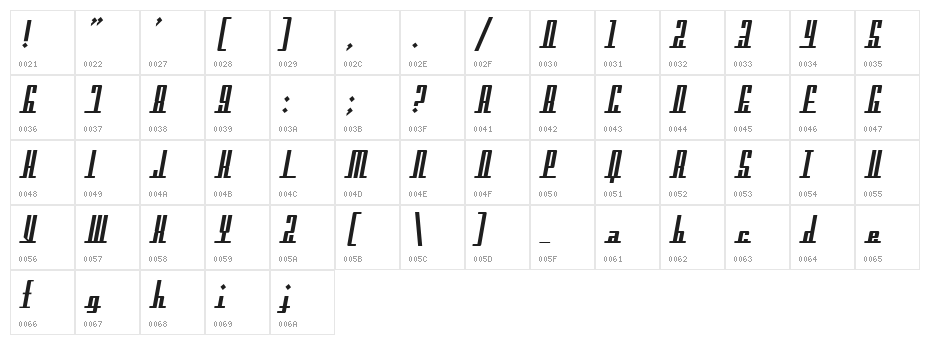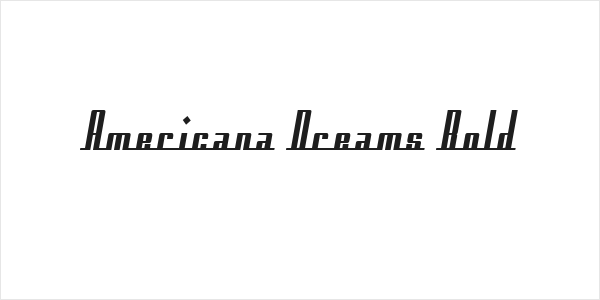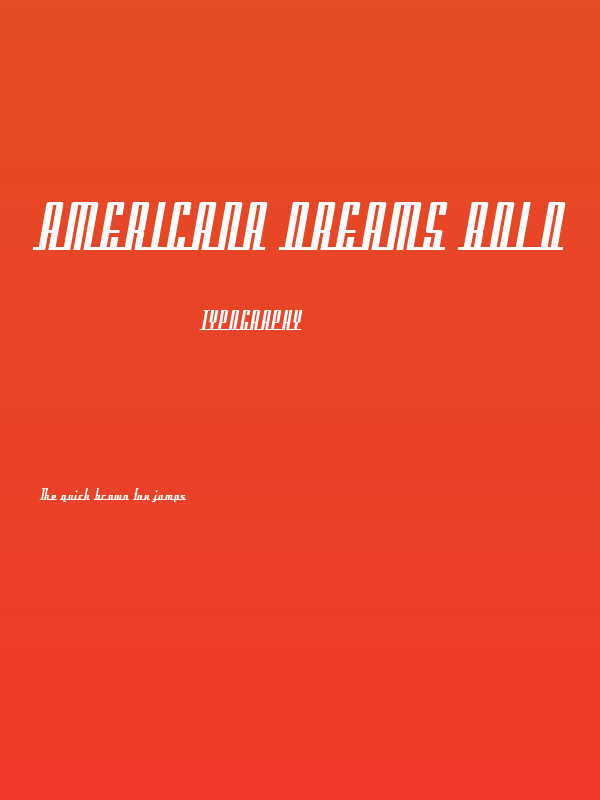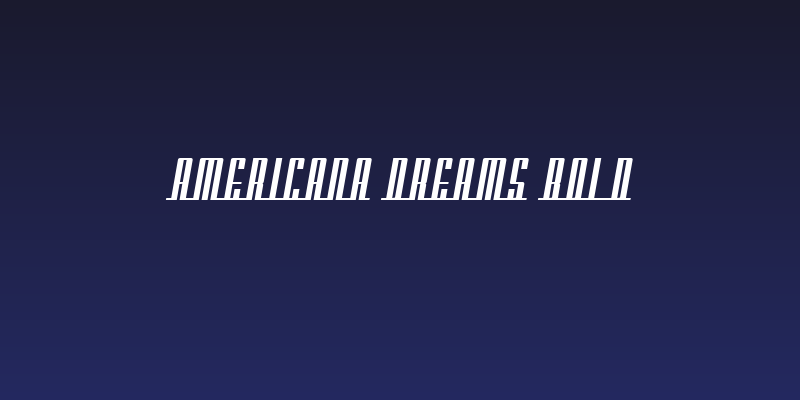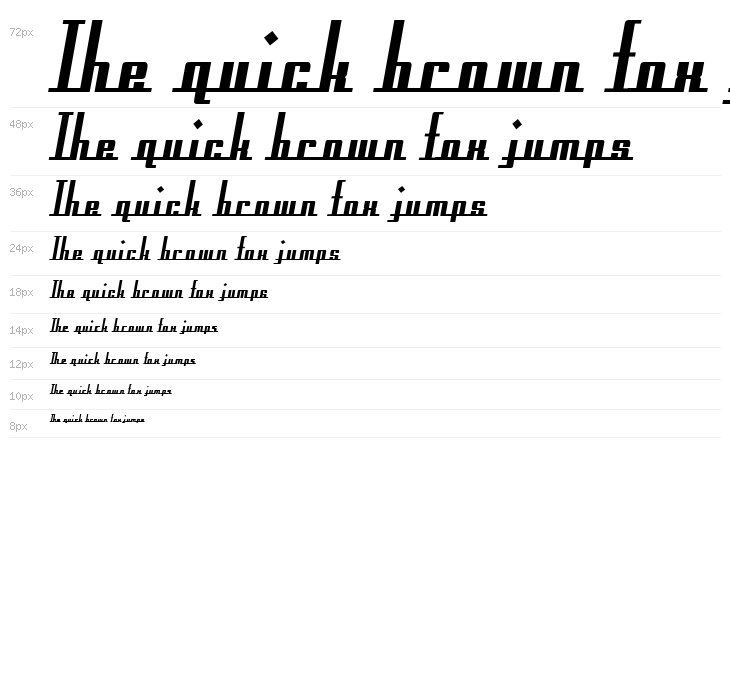
Americana Dreams Bold Font
Americana Dreams Bold Description
This font features a bold, geometric style with a strong emphasis on vertical lines and sharp angles. The uppercase letters are tall and narrow, giving a sense of height and elegance, while the lowercase letters maintain a consistent width, providing balance and readability. The numerals are distinct and align well with the overall design, making them easy to distinguish. Special characters are designed with the same boldness and angularity, ensuring they fit seamlessly with the rest of the typeface. The font's unique style is both modern and retro, reminiscent of mid-20th-century design aesthetics.